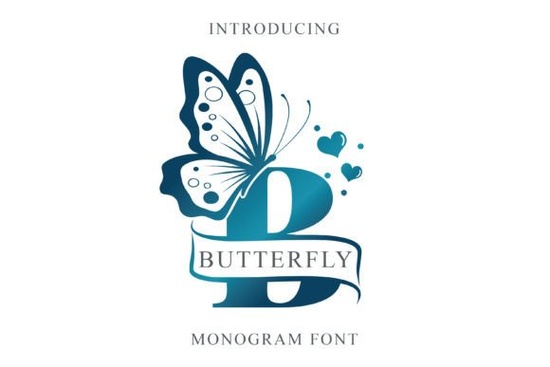
If you need a typeface that adds a soft, hand-drawn touch to branding and craft files, Butterfly Monogra Font delivers exactly that. It combines elegant letterforms with built-in ornamental details, making it a practical choice for designers, small shop owners, and hobbyists who want a finished look without spending hours on extra graphics. The style works especially well when you need a personal, authentic feel for stationery, social posts, or printable greetings.
What makes this decorative font stand out for everyday projects?
Decorative typefaces often struggle with readability, but this one keeps the characters clear while adding subtle flourishes. The built-in ornaments save you from hunting for separate vector elements or drawing swashes by hand. You get a cohesive set of glyphs that pair smoothly with plain backgrounds and simple layouts. If you usually spend time adjusting spacing or adding manual decorative accents, you will notice how much faster the design process becomes. For makers who prefer a different decorative style with a cleaner outline, you might also want to browse options like the trace me please typeface when your project calls for a more minimalist approach.
Which design projects work best with these letterforms?
The weight and curvature of the characters make them ideal for short headlines, monograms, and accent text. Long paragraphs will feel heavy, so reserve the typeface for titles, names, or short quotes. Here are the formats where it performs reliably:
- Print-on-demand merchandise: Mugs, tote bags, and notebook covers where a single word or initials need to pop.
- Wedding and event stationery: Place cards, menu headers, and invitation covers that benefit from a soft, romantic tone.
- Social media graphics: Instagram story overlays and Pinterest pins that require quick visual hierarchy.
- Greeting cards and tags: Short messages paired with ample white space and simple line art.